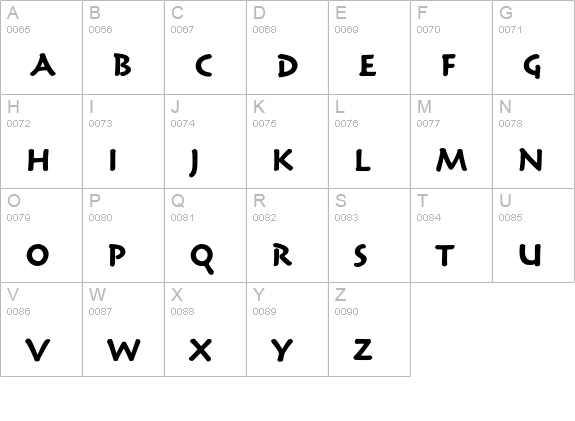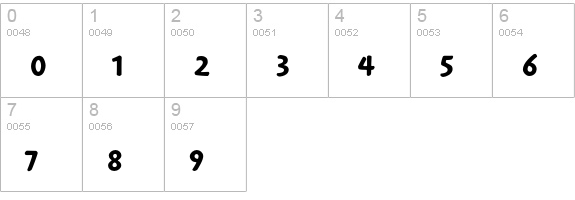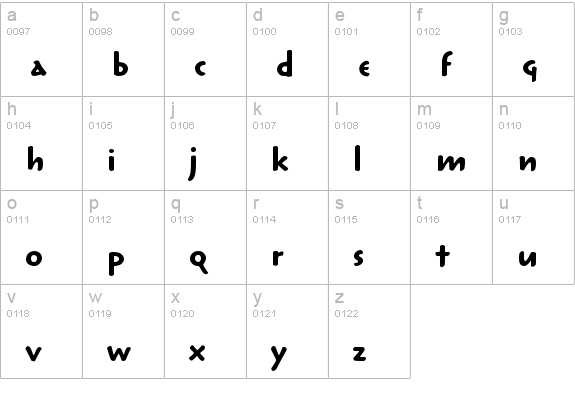
Reliq Std Bold Calm is a strong, high-contrast variant in the Reliq typeface family \xE2\x80\x94 well suited to headlines, attention-grabbing titles, and strong calls-to-action.
Reliq Std Bold Calm font is a stunning typeface that exudes a sense of tranquility and confidence. With its bold and assertive letterforms, this font effortlessly captures attention and delivers a powerful message. The design of Reliq Std Bold Calm font strikes the perfect balance between strength and serenity. Its clean lines and smooth curves create a harmonious visual experience, making it ideal for a wide range of projects. Whether used for headlines, logos, or body text, this font brings a touch of elegance and sophistication to any design. One of the most remarkable aspects of Reliq Std Bold Calm font is that it is freely available to download at FontsMarket.com. This means that designers and creatives can access this exceptional font without any cost, allowing them to bring their visions to life without any limitations. With its timeless appeal and versatility, Reliq Std Bold Calm font is a must-have for any designer's toolkit. Its bold and calm nature makes it suitable for various applications, from print materials to web design. Whether used in a professional setting or for personal projects, this font is sure to leave a lasting impression. In conclusion, Reliq Std Bold Calm font is a remarkable typeface that combines strength and tranquility in a visually appealing manner. Its availability as a free download at FontsMarket.com makes it an even more desirable choice for designers seeking a versatile and high-quality font for their projects.